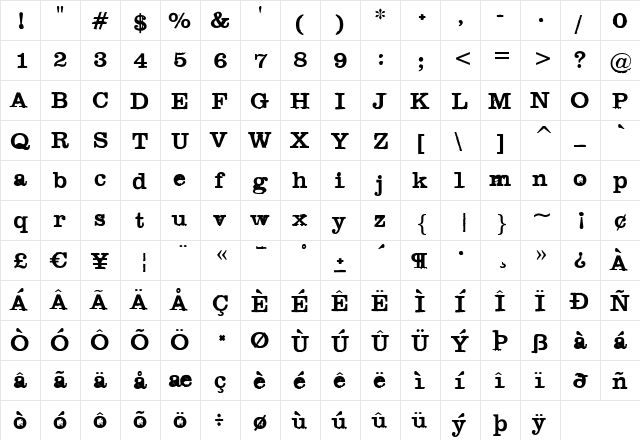
Black Widow Black
Design Context for Black Widow Typeface
Black Widow takes a measured approach to typography — its balanced proportions and neutral character make it a reliable workhorse for both digital and print work.
Pro Tip: Use Black Widow in both headline and body roles to test its range before committing to a single application.